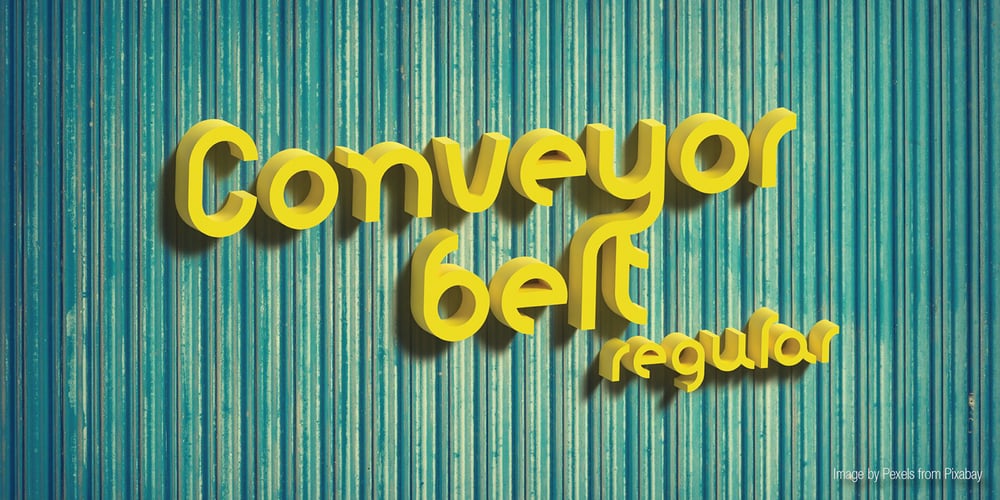
Conveyor Belt Font Family was designed by Lizl Burger and published by DesignByLight. Conveyor Belt contains 2 styles and family package options. Conveyor Belt was designed for an environmental paper made from sugar cane waste called bagasse. The paper mill use conveyor belts to produce the paper from when the bagasse gets loaded to the finished paper product. This was the inspiration for this font. It has some alternatives to give options for different words linking different letters. This is a moving font and flowing.